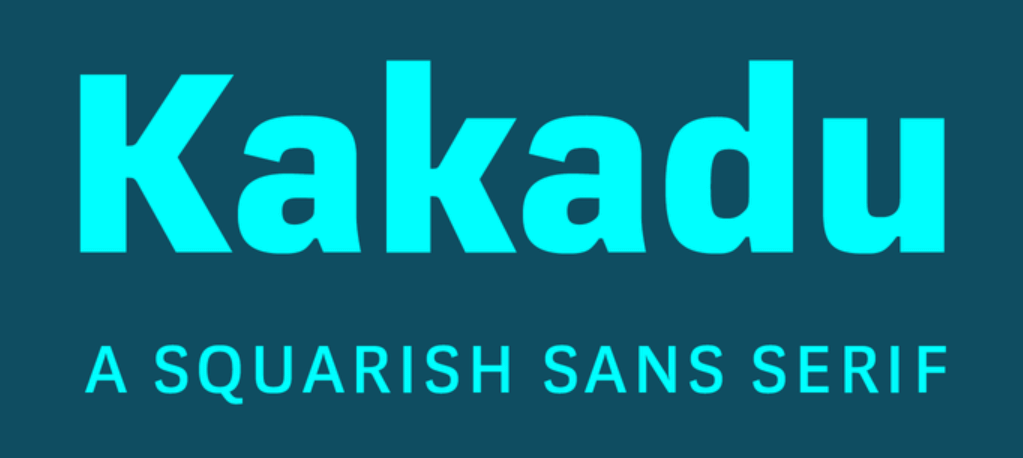
Kakadu font own family become designed with the aid of Ludwig Übele in 2016 and was published on Ludwig type for the first time.
This font works nicely in small sizes whilst, it appears robust and distinguished in large ones. Kakadu is a squarish sans serif, designed to work similarly well on paper and on screen.